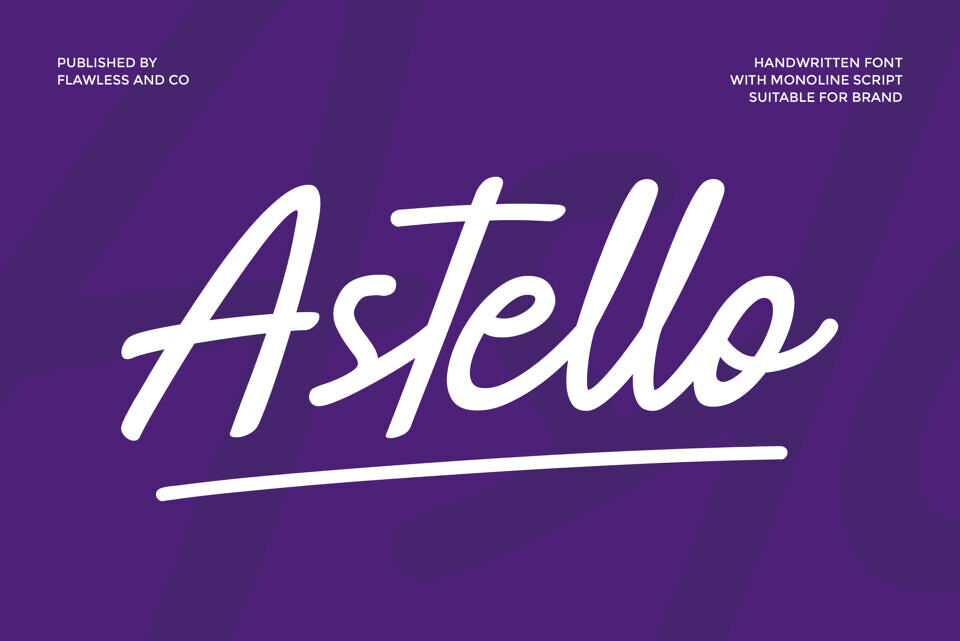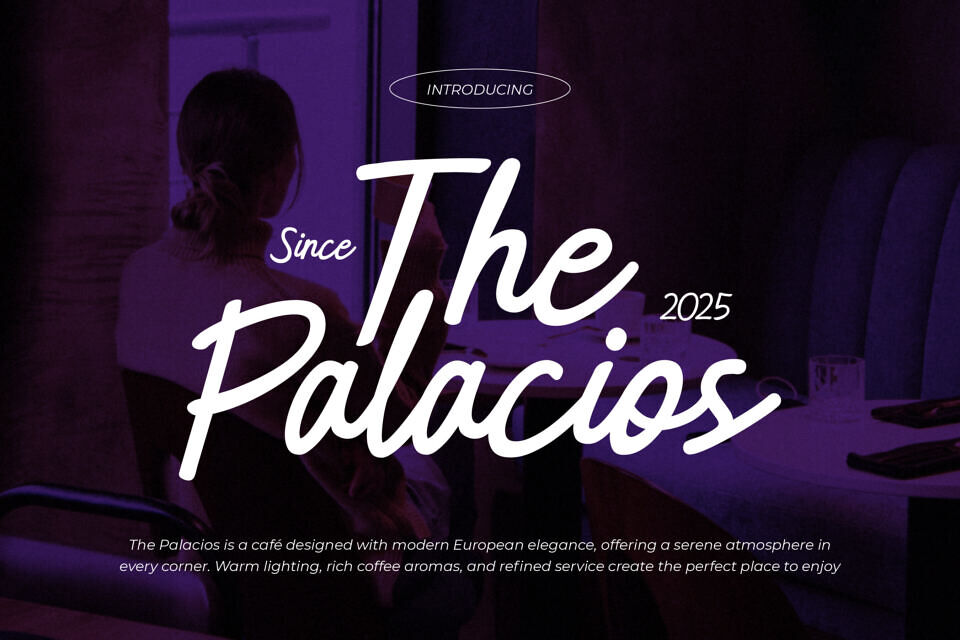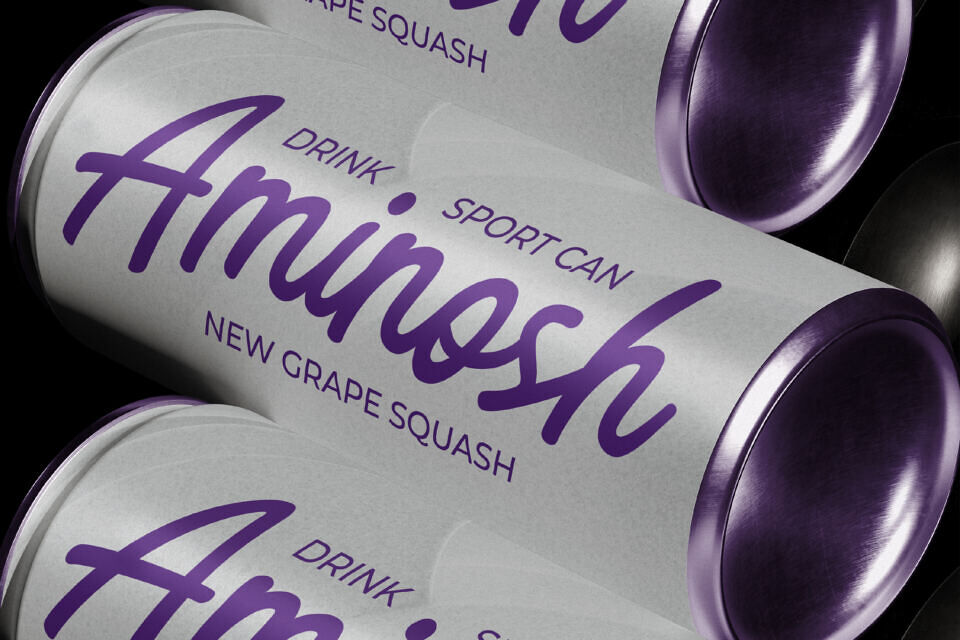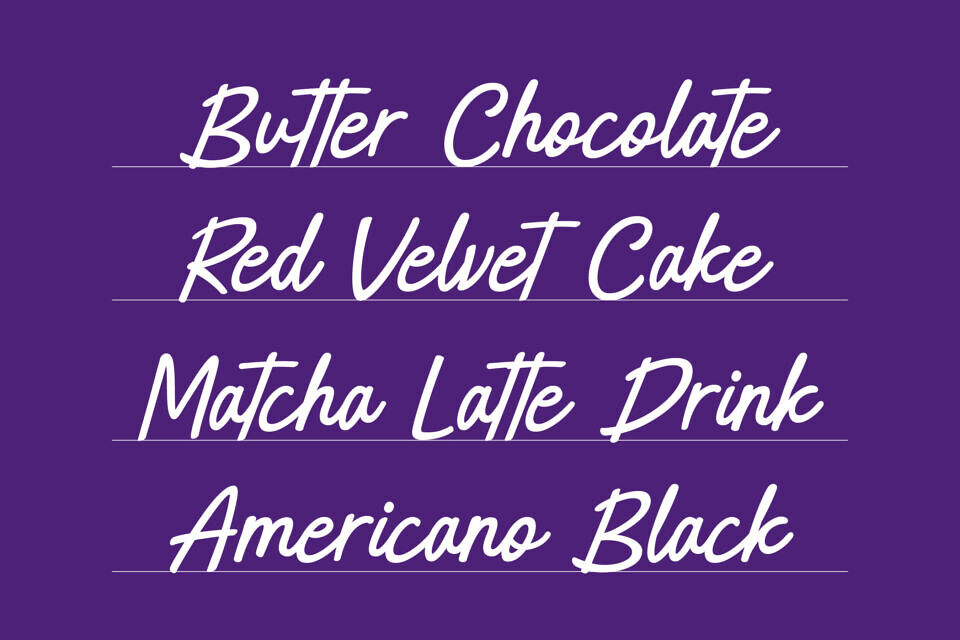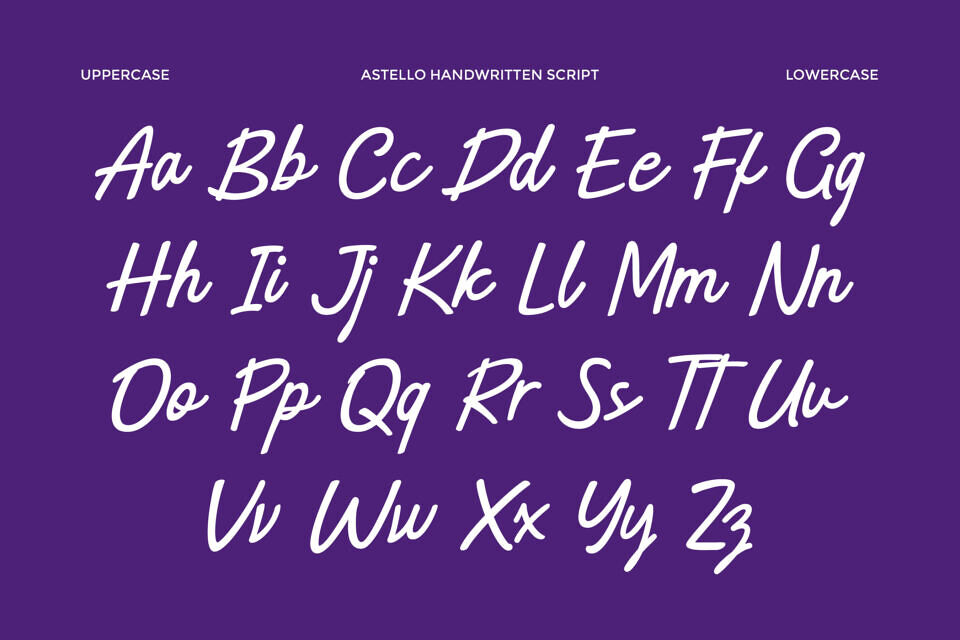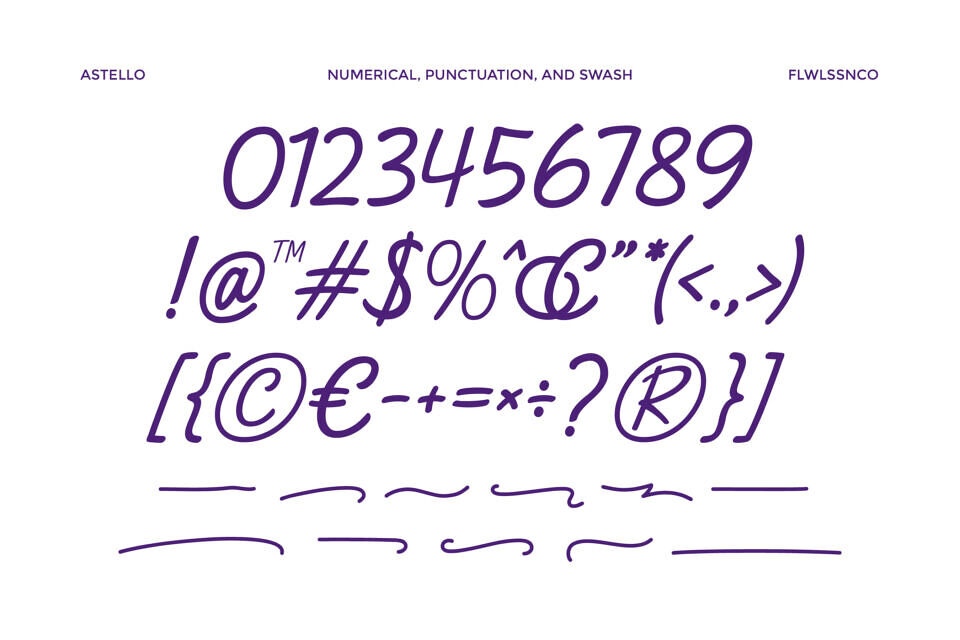
Astello Font
Astello is a natural handwritten font with a clean monoline script style. Designed to feel personal, smooth, and modern, Astello brings a friendly yet professional touch to your designs. Its flowing strokes and balanced letterforms make it easy to read while keeping a handcrafted character.